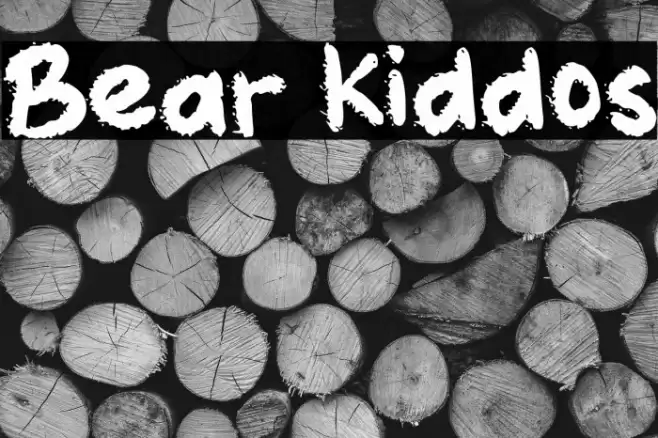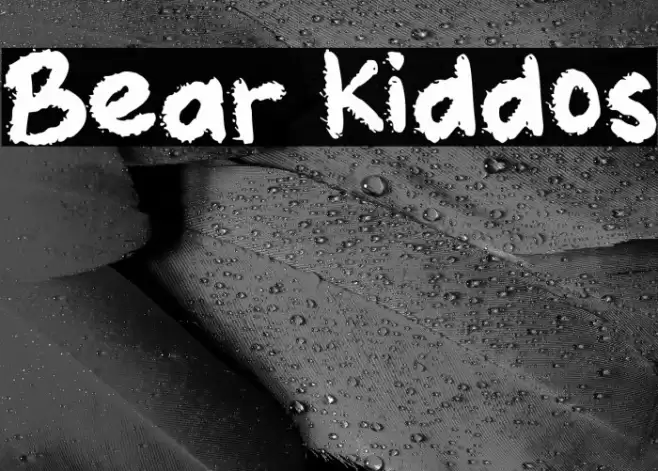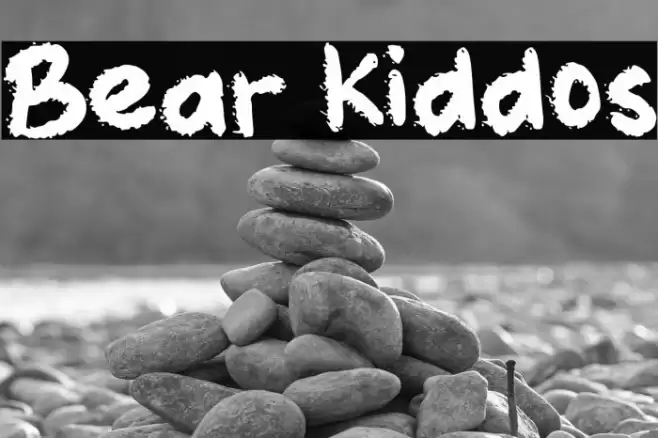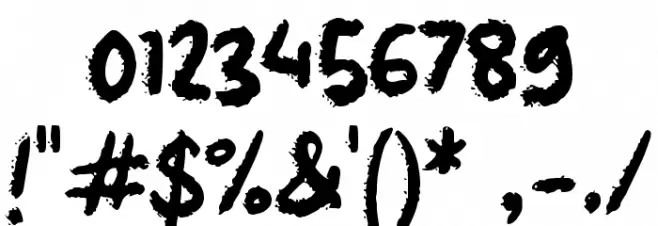
Bear Kiddos Font
Bear Kiddos Description
This playful and energetic font features a hand-drawn, textured style that mimics the appearance of brush strokes or crayon markings. The characters are bold and slightly irregular, giving them a lively and informal feel. The uppercase and lowercase letters maintain a consistent style, with rounded edges and a slightly uneven baseline, enhancing the whimsical nature of the font. The numbers and special characters follow the same design principles, ensuring a cohesive look across all elements. This font is perfect for projects that require a fun and approachable aesthetic.
A playful, hand-drawn font with a textured, brush-like appearance from Uncategorized fonts.
- Proposed Projects: Ideal for children's books, playful branding, party invitations, and creative posters.